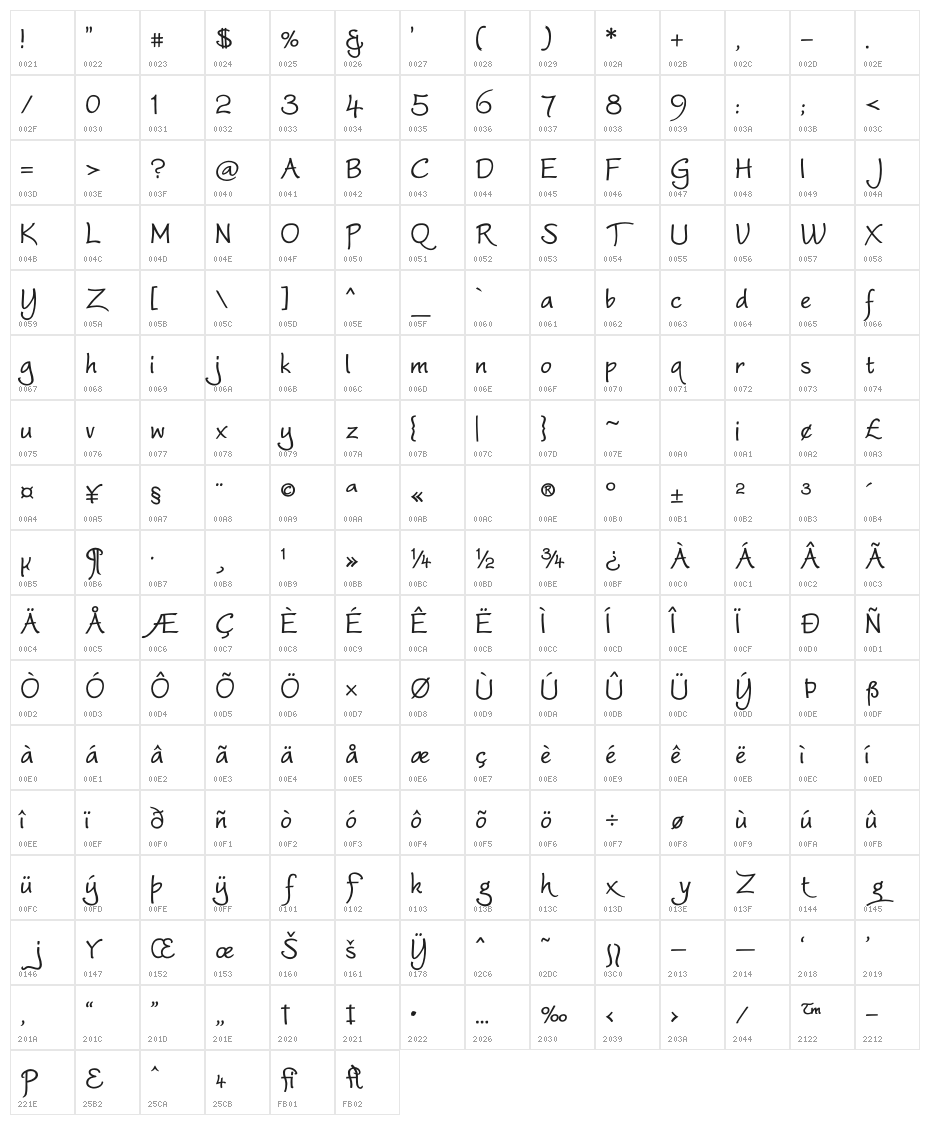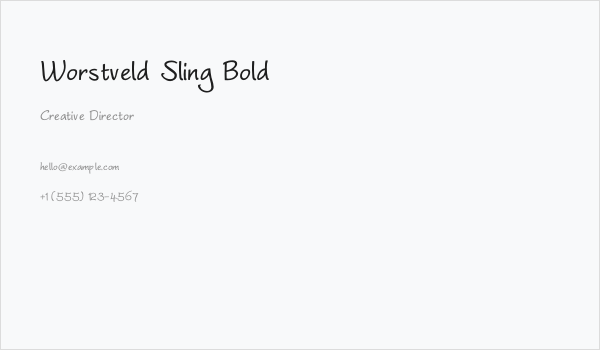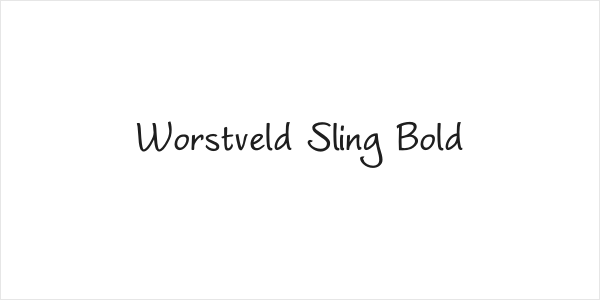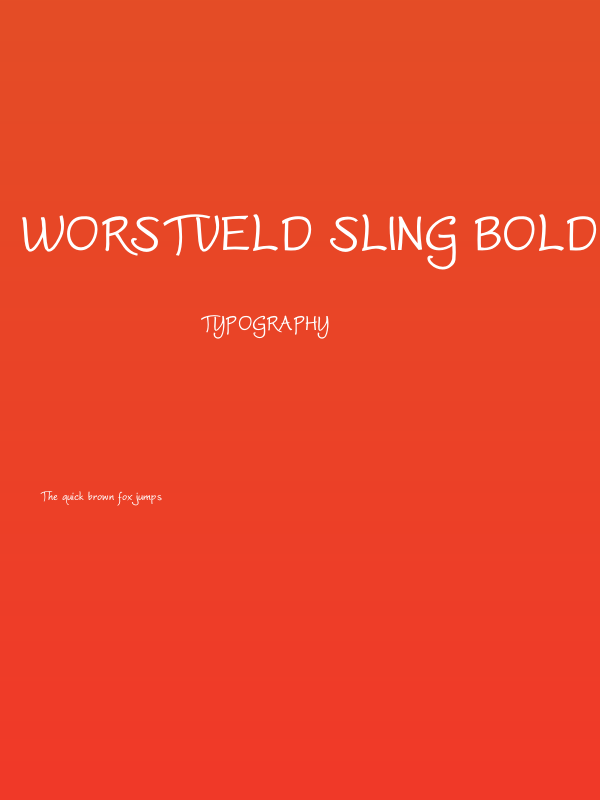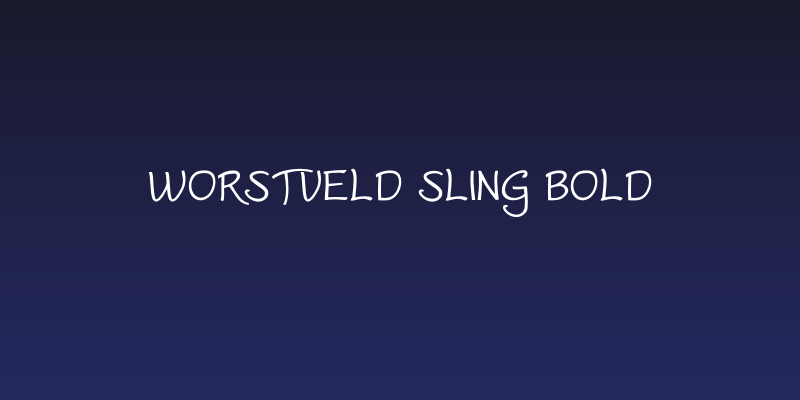
Worstveld Sling Bold Font
Worstveld Sling Bold Description
This font features a playful and whimsical style with a handwritten appearance. The letters are slightly slanted, giving it an informal and casual look. The strokes are smooth and rounded, with a consistent thickness that adds to its readability. The uppercase and lowercase letters maintain a harmonious balance, while the numerals and special characters integrate seamlessly with the overall design. This font is characterized by its friendly and approachable aesthetic, making it suitable for a variety of creative projects.
| Proposed Projects | Ideal for greeting cards, children's books, playful branding, and casual invitations. |